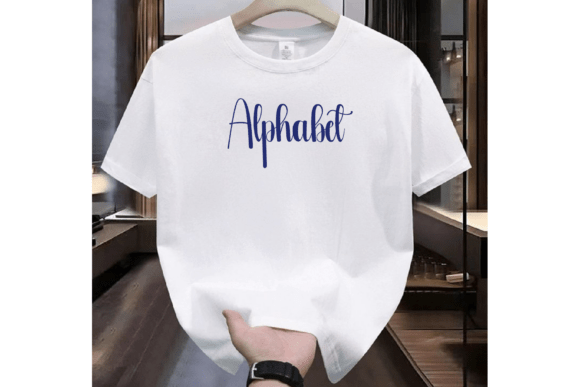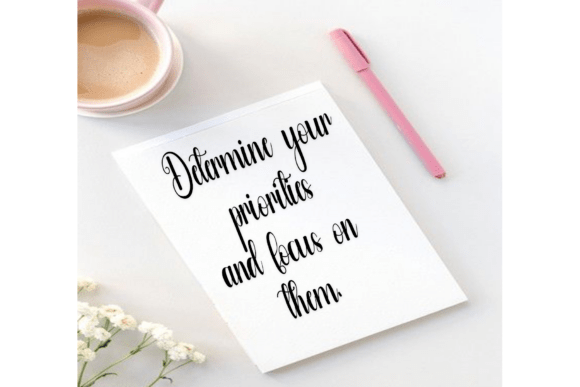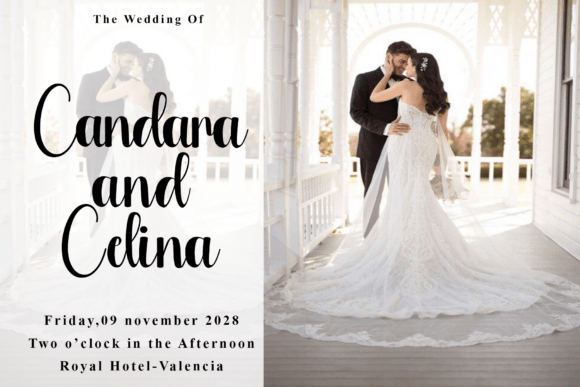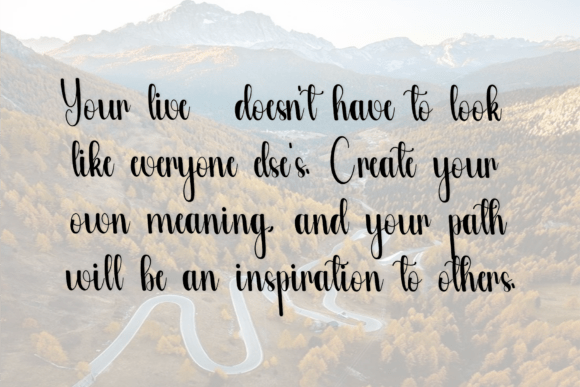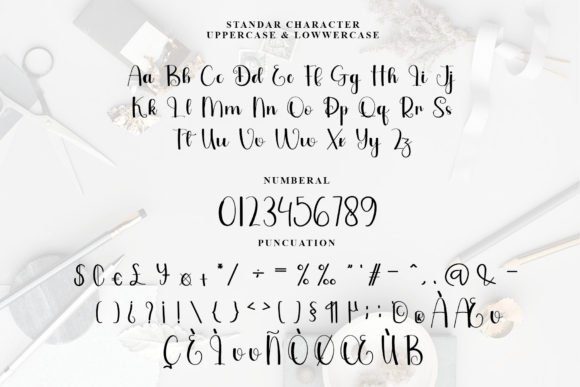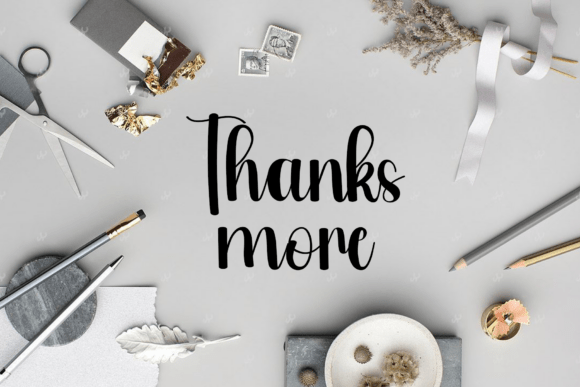
Introducing Chicago Downton: The Elegant Modern Handwritten Script Font
In the world of typography, a font can make all the difference in the aesthetic and tone of a design project. For designers and crafters looking for a touch of sophistication and elegance, Chicago Downton is a beautifully flowing and modern handwritten script font that is sure to impress. With its smooth, generous curves and graceful, elongated strokes, this professional and unique typeface is perfect for a variety of applications, from personal branding to luxury wedding stationery.
The Characteristics of Chicago Downton
Chicago Downton boasts a number of characteristics that set it apart from other fonts. Its smooth, flowing curves give it a sense of movement and fluidity, while its generous curves and elongated strokes add a touch of sophistication and elegance. The font’s overall look is both modern and timeless, making it perfect for designers and crafters who want to add a touch of luxury to their work.
Some of the key features of Chicago Downton include:
- Smooth, flowing curves for a sense of movement and fluidity
- Generous curves and elongated strokes for a sophisticated, signature look
- Modern and timeless design
- Perfect for personal branding, photography watermarks, luxury wedding stationery, and editorial design
Uses for Chicago Downton
Chicago Downton is a versatile font that can be used in a variety of applications. Some of the most popular uses for this font include:
- Personal Branding: Add a touch of sophistication and elegance to your personal brand with Chicago Downton. This font is perfect for logos, business cards, and other marketing materials.
- Photography Watermarks: Add a professional touch to your photos with Chicago Downton. This font is perfect for creating elegant and sophisticated watermarks.
- Luxury Wedding Stationery: Make your wedding stationery stand out with Chicago Downton. This font is perfect for creating elegant and sophisticated invitations, save-the-dates, and other wedding materials.
- Editorial Design: Add a touch of luxury to your editorial designs with Chicago Downton. This font is perfect for creating elegant and sophisticated layouts for magazines, newspapers, and other publications.
Why Choose Chicago Downton?
There are many reasons why designers and crafters should choose Chicago Downton for their next project. Some of the top reasons include:
- Unique and Professional Design: Chicago Downton is a one-of-a-kind font that is sure to make your designs stand out. Its unique and professional design makes it perfect for designers and crafters who want to add a touch of sophistication to their work.
- Elegant and Sophisticated: Chicago Downton is an elegant and sophisticated font that is perfect for designers and crafters who want to add a touch of luxury to their work.
- Versatile: Chicago Downton is a versatile font that can be used in a variety of applications, from personal branding to editorial design.
In conclusion, Chicago Downton is a beautifully flowing and elegant modern handwritten script font that is perfect for designers and crafters who want to add a touch of sophistication and luxury to their work. With its smooth, generous curves and graceful, elongated strokes, this professional and unique typeface is sure to make your designs stand out. Whether you’re working on a personal branding project, creating photography watermarks, or designing luxury wedding stationery, Chicago Downton is the perfect choice.